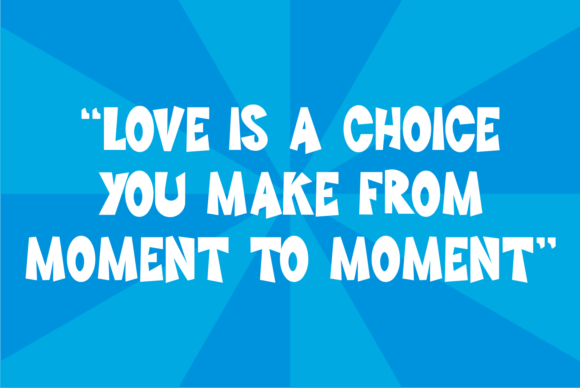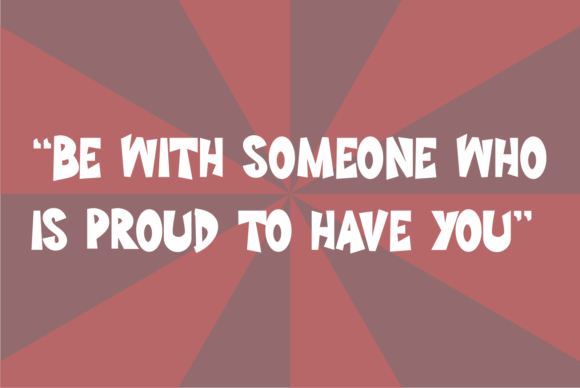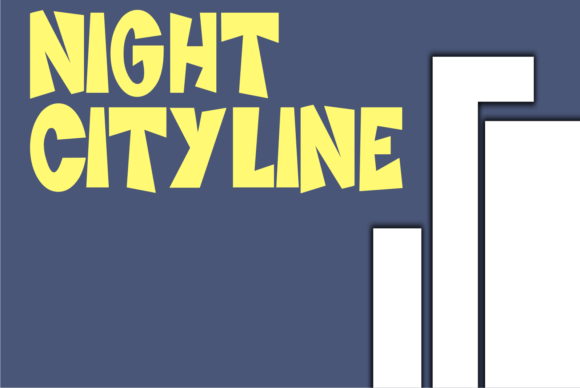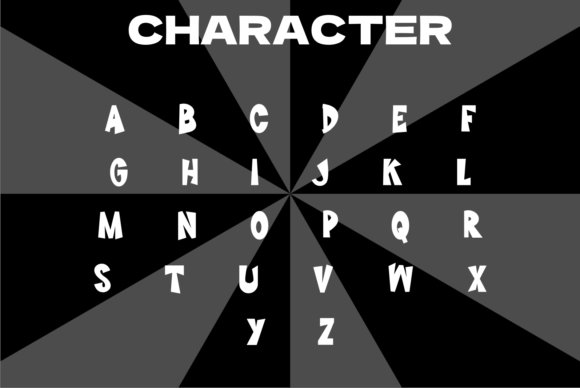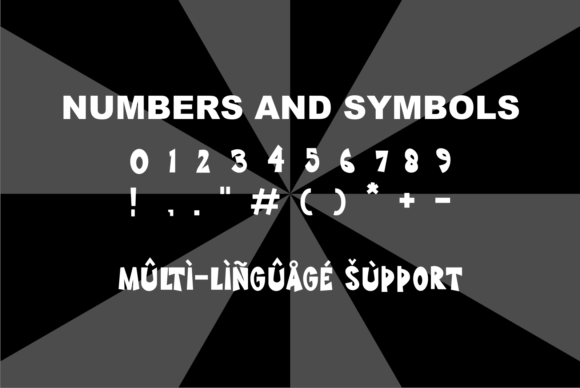
Introduction to Jumeral Font
Have you ever stared at a blank canvas, wondering how to bring your creative vision to life? We’ve all been there – the blank page, the empty design space, the uncertainty that grips us when we’re not sure where to start. But what if I told you that there’s a secret ingredient that can instantly elevate your creations and make them stand out from the crowd?
Enter the Jumeral Font, a stunning display font that’s as versatile as it is striking. With its thick, bold letters, Jumeral Font is the perfect addition to any design project. Whether you’re working on a logo, a poster, or a social media graphic, this font is sure to make your creations more appealing and engaging. And the best part? It’s completely free to download, making it an invaluable resource for designers and creatives of all levels.
Key Features of Jumeral Font
- Features a transparent background for seamless integration into designs
- Unique, modern design that adds a touch of elegance to any creative project
- Perfect for use in logos, branding, and other design elements
Honest Review: Jumeral Font
I recently had the chance to work with the Jumeral Font, and I must say it’s been a game-changer for my creative project. The free download made it an instant favorite among my team, and the high quality of the font really stood out.
- ✨ High-quality design – The Jumeral Font has a sleek and modern design that looks great on any background.
- ⚠️ Limited character set – The Jumeral Font only includes a limited character set, which can make it difficult to use for more complex designs.
- ⚠️ No bold or italic options – The lack of bold or italic options can make it difficult to create contrast in our designs.
Overall, I’m really impressed with the Jumeral Font. While it has its limitations, the high-quality design and free download make it a great addition to any design resource library. I’d definitely recommend it for smaller creative projects or personal designs.
The Jumeral Font is a high-quality, versatile design resource perfect for any creative project. With its transparent background, it’s ideal for overlaying text on images or backgrounds.
The Jumeral Font is ideal for:
- Creating eye-catching titles and headings for presentations and documents.
- Designing social media graphics and advertisements.
- Overlaying text on images for a unique and creative look.